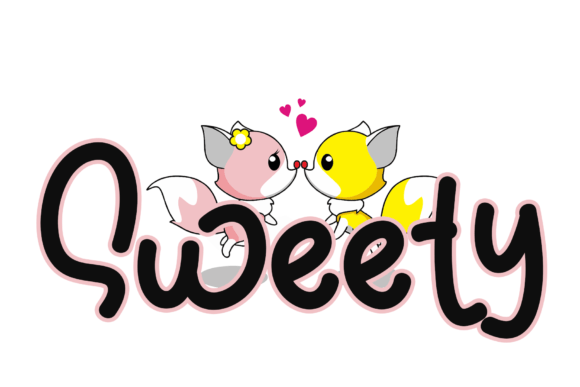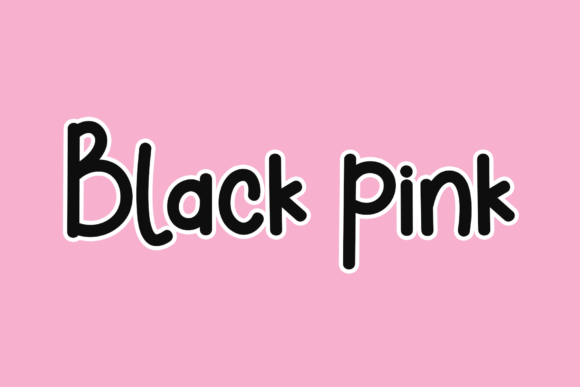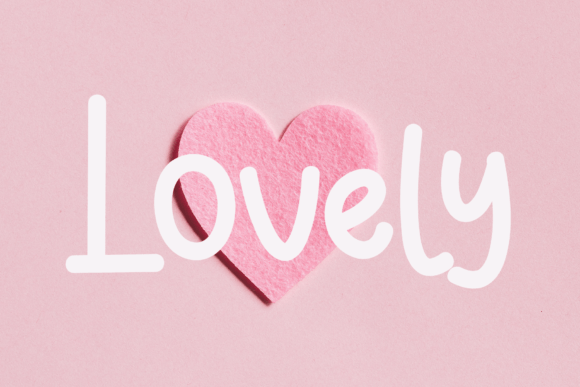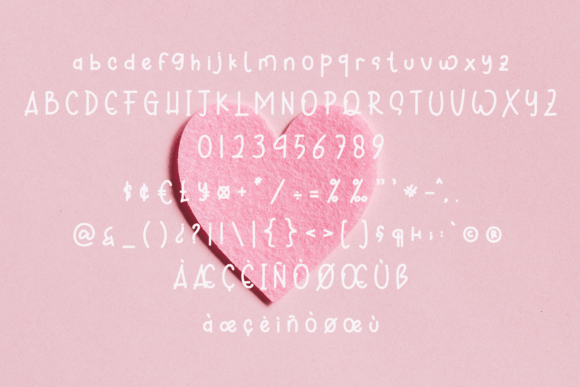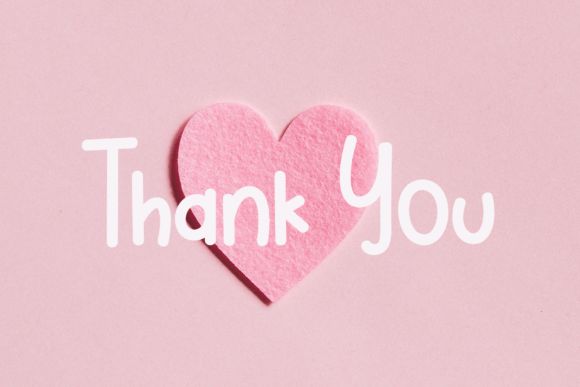
Hello Amelia Font: A Playful and Elegant Handwritten Font
Hello Amelia is a stunning handwritten font that has captured the hearts of designers and crafters alike. With its playful and elegant touch, this font is perfect for adding a personal touch to your favorite projects. In this article, we’ll dive into the world of Hello Amelia Font, exploring its unique features, and what makes it a must-have for any designer or crafter.
The Beauty of Hello Amelia Font
Hello Amelia Font is a beautifully crafted handwritten font that exudes elegance and sophistication. Its incredibly distinct and timeless style makes it perfect for creating spectacular designs that stand out from the crowd. The font’s playful touch adds a whimsical feel, making it ideal for projects that require a personal and creative approach.
Unique Features of Hello Amelia Font
- Playful and Elegant Touch: Hello Amelia Font boasts a unique blend of playfulness and elegance, making it perfect for a wide range of projects.
- Handwritten Style: The font’s handwritten style gives it a personal and organic feel, adding a touch of warmth to any design.
- Distinct and Timeless: Hello Amelia Font’s incredibly distinct and timeless style ensures that your designs will stand the test of time.
- Versatile: This font is perfect for a variety of projects, from branding and advertising to packaging and digital designs.
Hello Amelia Font is a dream come true for designers and crafters looking to add a personal touch to their projects. Whether you’re creating wedding invitations, branding materials, or digital designs, this font is sure to impress. Its unique features make it perfect for:
- Wedding and Event Designs: Add a touch of elegance and sophistication to your wedding invitations, save-the-dates, and event branding.
- Branding and Advertising: Create stunning brand identities, logos, and advertising materials that stand out from the competition.
- Digital Designs: Use Hello Amelia Font to create engaging digital designs, such as social media graphics, blog headers, and email newsletters.
- Crafting and DIY Projects: Add a personal touch to your crafting and DIY projects, such as handmade cards, gift tags, and scrapbooking.
Why Choose Hello Amelia Font?
With so many fonts available, why choose Hello Amelia Font? Here are just a few reasons why this font stands out:
- Unique Style: Hello Amelia Font’s unique style ensures that your designs will stand out from the crowd.
- Elegant and Playful: The font’s elegant and playful touch makes it perfect for a wide range of projects.
- High-Quality: Hello Amelia Font is a high-quality font that is designed to deliver exceptional results.
Hello Amelia Font is a stunning handwritten font that is perfect for designers and crafters looking to add a personal touch to their projects. With its playful and elegant touch, unique features, and versatility, this font is sure to become a favorite. Whether you’re creating wedding designs, branding materials, or digital designs, Hello Amelia Font is a must-have font that will help you create spectacular designs that stand out from the crowd.